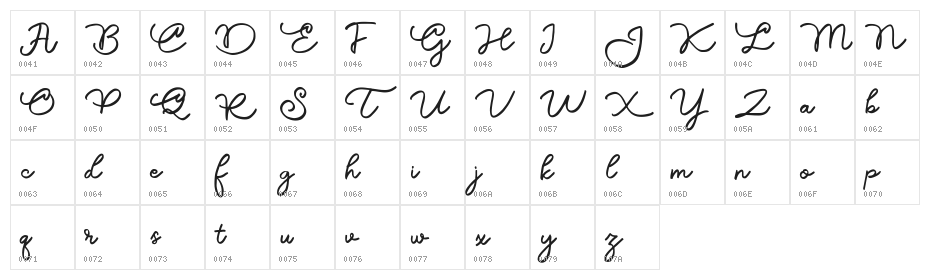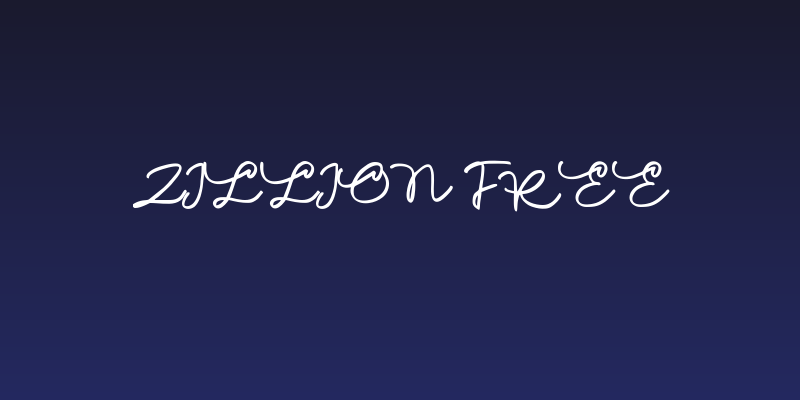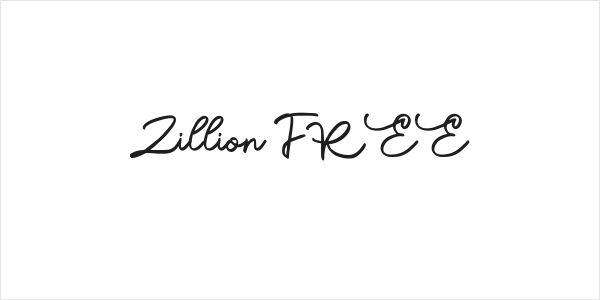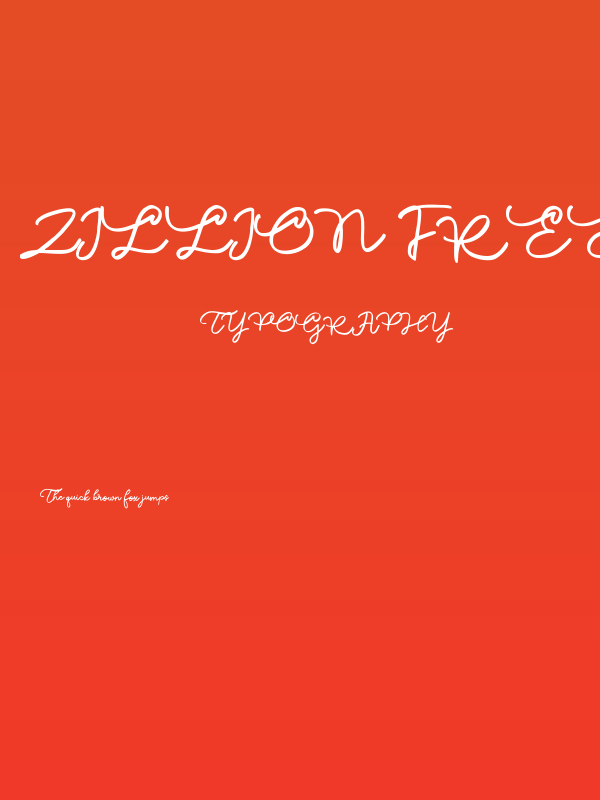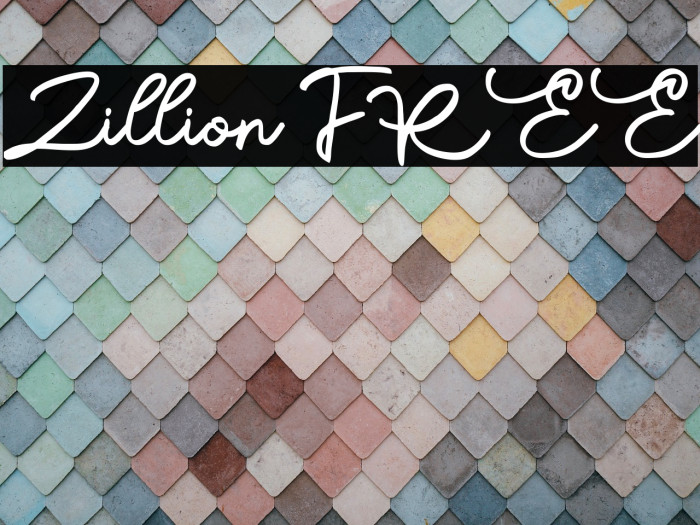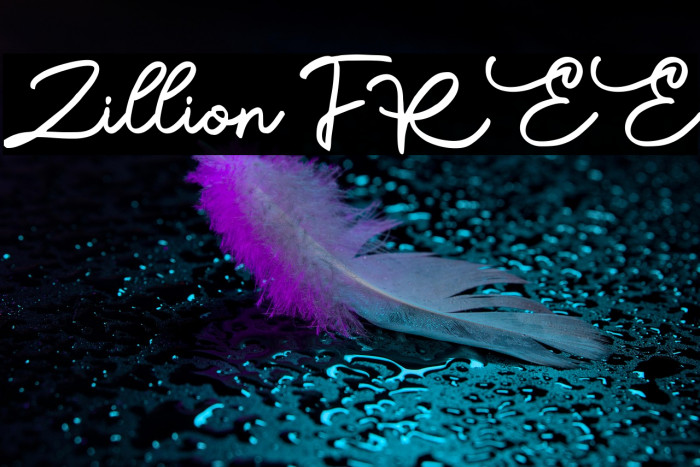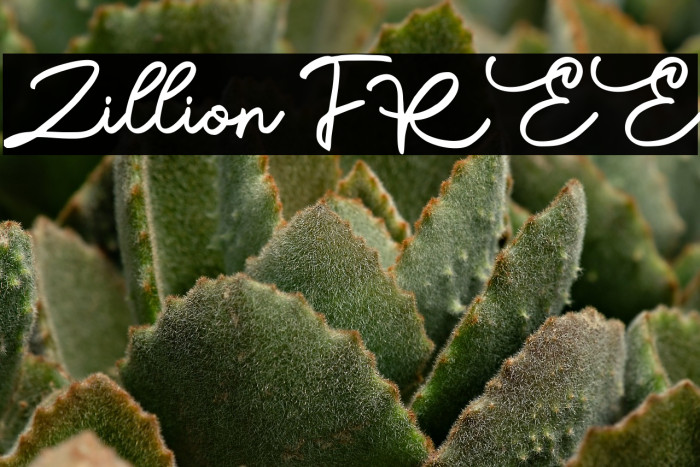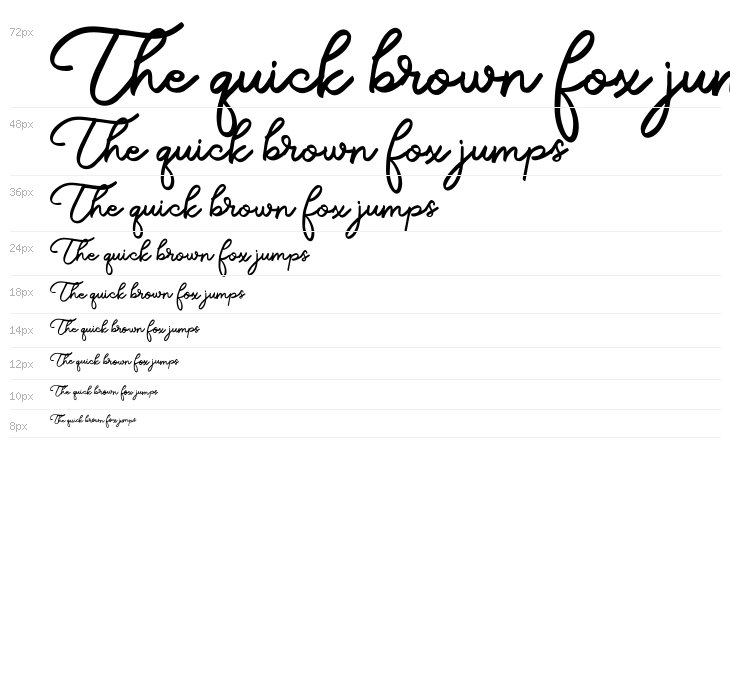
Zillion FREE Font
Zillion FREE Description
This font features a flowing, cursive style that exudes elegance and sophistication. The uppercase letters are gracefully connected, with smooth curves and loops that give a sense of fluidity. The lowercase letters maintain a consistent flow, enhancing readability while retaining an artistic flair. The strokes are moderately thick, providing a balanced contrast that makes the text stand out without overwhelming the eye. This font is ideal for projects that require a touch of class and personality, such as invitations, branding, and decorative elements. Its unique style is both modern and timeless, making it versatile for various design needs.
| Overall Style | Elegant, Modern |
| Use Case | Headlines, Invitations, Branding |
| Proposed Projects | Ideal for wedding invitations, elegant branding, decorative signage, and personalized stationery. |